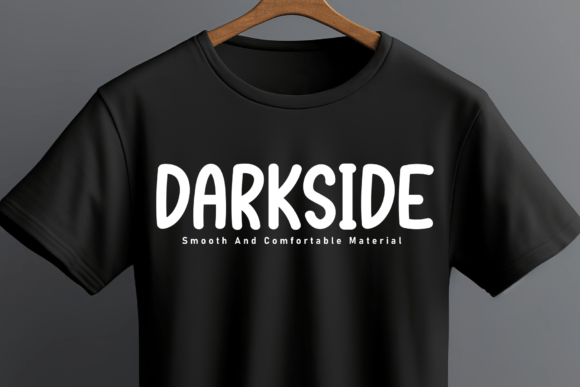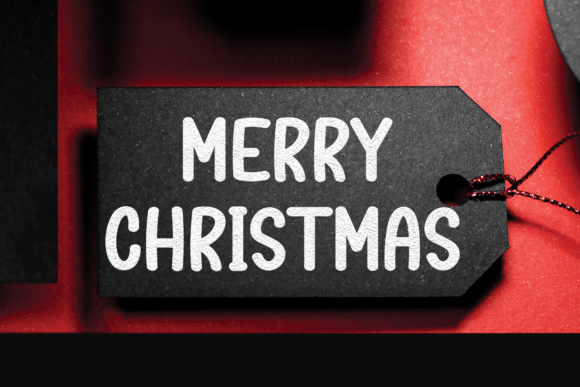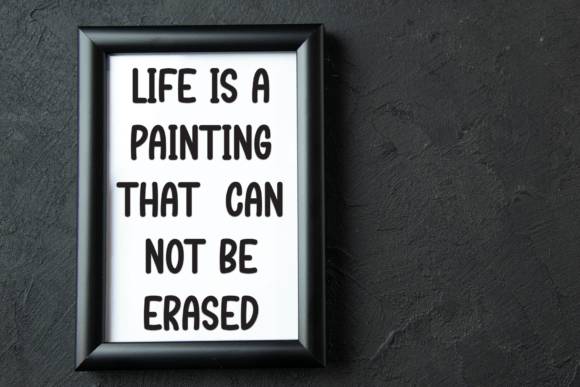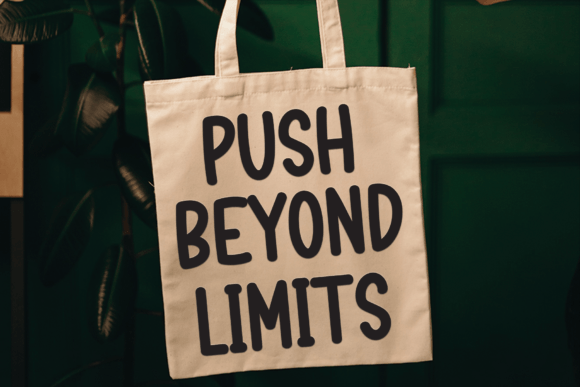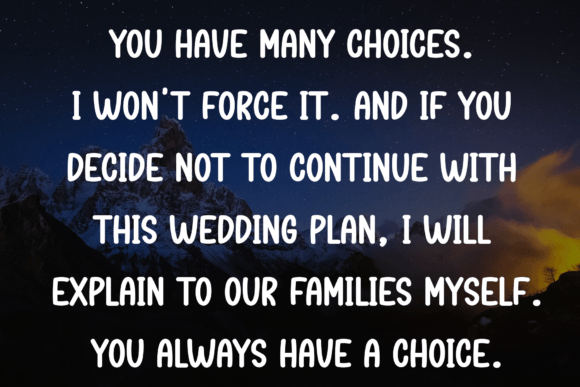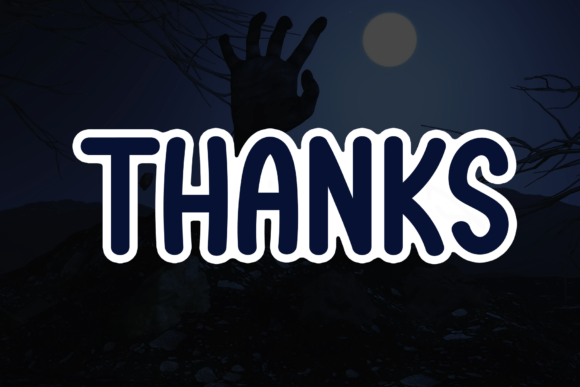
Introduction to Gripping Night Font
Gripping Night is a lovely and timeless handwritten font.
Key Features of Gripping Night Font
Why Choose Gripping Night Font?